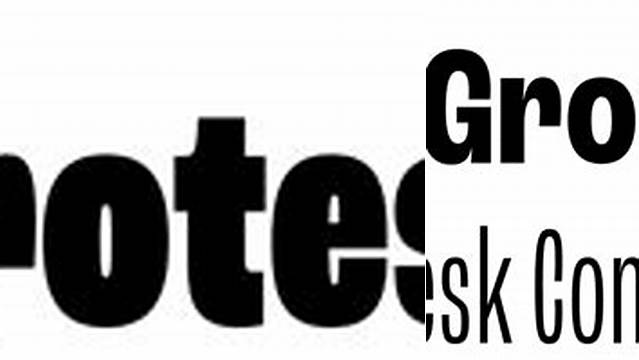
Roc Grotesk is a popular sans-serif font known for its modern and geometric design. Many designers and creatives seek it out for its versatility and aesthetic appeal. In this comprehensive guide, we'll delve into everything you need to know about Roc Grotesk, including where to find a free download, how to use it effectively, and its various applications.
1. What is Roc Grotesk Font?
Roc Grotesk is a contemporary sans-serif typeface characterized by its clean lines, geometric shapes, and balanced proportions. Created by a talented designer, this font has quickly gained popularity due to its versatility and modern aesthetic. The font family typically includes various weights and styles, offering designers a wide range of options to suit different design needs. It's often used in branding, advertising, web design, and print media due to its readability and visual appeal. Roc Grotesk strikes a balance between being functional and stylish, making it a favorite among designers who want a typeface that looks good and performs well in various applications. The subtle details and careful craftsmanship contribute to its unique character, setting it apart from other generic sans-serif fonts. So, if you're looking for a font that combines modern design with practicality, Roc Grotesk might be the perfect choice for your next project.
2. Key Features of Roc Grotesk
Roc Grotesk boasts several distinctive features that make it a favorite among designers. First and foremost, its clean and geometric design provides a modern and sophisticated look. The balanced proportions ensure readability in various sizes, making it suitable for both headlines and body text. The font family typically includes multiple weights (such as light, regular, bold, and extra-bold) and styles (like italic and condensed), providing flexibility for different design applications. Its versatility allows it to be used in a wide range of projects, from branding and advertising to web design and print media. The uniform stroke thickness and open letterforms enhance its clarity, even on screens. Furthermore, Roc Grotesk often supports a wide range of characters and languages, making it accessible to a global audience. The subtle details, such as slightly rounded corners, add a touch of warmth and personality to the typeface. Overall, the combination of these features makes Roc Grotesk a highly functional and aesthetically pleasing font for various design projects. Guys, you'll find it super useful!
6. Using Roc Grotesk in Web Design
7. Roc Grotesk in Logo Design
Using Roc Grotesk in logo design can give your brand a modern and sophisticated edge. Its clean lines and geometric shapes make it highly versatile for creating memorable logos. When designing a logo with Roc Grotesk, consider the brand's personality and values to ensure the font aligns with the overall message. Experiment with different weights and styles to create a unique and distinctive look. Pay attention to letter spacing and kerning to refine the visual balance of the logo. Roc Grotesk works well in both standalone logos and logos that incorporate graphic elements. Ensure that the logo is legible and recognizable in various sizes, from small favicons to large banners. Consider using a single weight for simplicity or combining different weights to add emphasis. Test the logo on different backgrounds and color palettes to ensure it remains visually appealing. By carefully crafting a logo with Roc Grotesk, you can create a strong and lasting impression for your brand.
8. Roc Grotesk Font Pairing
Pairing fonts effectively can significantly enhance the visual appeal of your design. When using Roc Grotesk, consider pairing it with complementary fonts that balance its modern aesthetic. For a classic and timeless combination, pair Roc Grotesk with a serif font like Merriweather or Georgia for body text. This creates a contrast that improves readability and adds visual interest. Another option is to pair it with a humanist sans-serif font like Open Sans or Lato, which provides a softer and more approachable feel. Experiment with different font weights and styles to create a visual hierarchy and guide the reader's eye. Avoid pairing Roc Grotesk with fonts that are too similar, as this can create a monotonous look. Instead, look for fonts that offer a distinct contrast while still maintaining a cohesive design. Consider the overall tone and purpose of your design when selecting font pairings. By carefully choosing complementary fonts, you can create a harmonious and visually appealing design with Roc Grotesk.
9. Roc Grotesk for Print Media
Roc Grotesk is an excellent choice for various print media applications. Its clean lines and readability make it suitable for brochures, posters, magazines, and books. When using Roc Grotesk in print, ensure that you use high-resolution font files to avoid pixelation. Pay attention to font sizes and line heights to optimize readability, especially for body text. Use different weights and styles to create visual hierarchy and guide the reader's eye. Consider the paper stock and printing method when selecting font colors, as these factors can affect the final appearance. Roc Grotesk works well for both headings and body text, but consider using a serif font for longer passages to improve readability. Test the design with a print proof before mass production to ensure that the font appears as intended. By carefully implementing Roc Grotesk in your print projects, you can create visually appealing and professional-looking materials.
30. Final Thoughts on Roc Grotesk
Roc Grotesk is a fantastic font choice for anyone looking to add a touch of modern sophistication to their designs. Its versatility and readability make it suitable for a wide range of projects, from branding to web design. Remember to always check the licensing terms before using any font, and explore the various alternatives if you can't find a free version. Experiment with different font pairings and design techniques to create unique and eye-catching designs with Roc Grotesk. With its clean lines and geometric shapes, Roc Grotesk is sure to elevate your next creative project! So go out there and start designing!